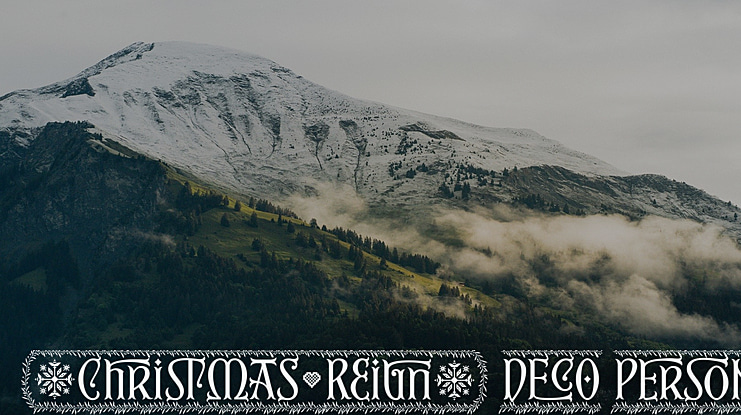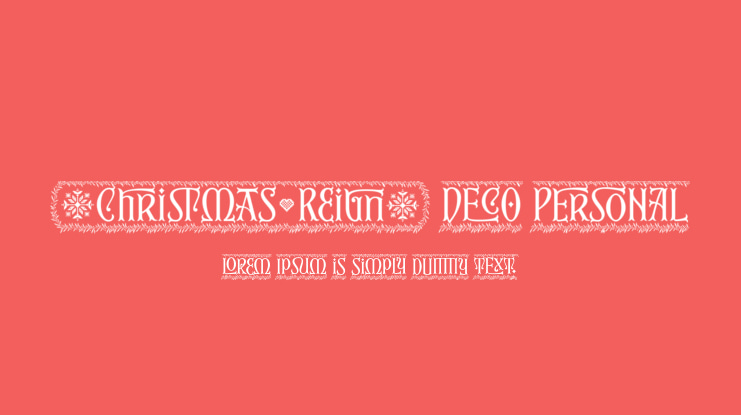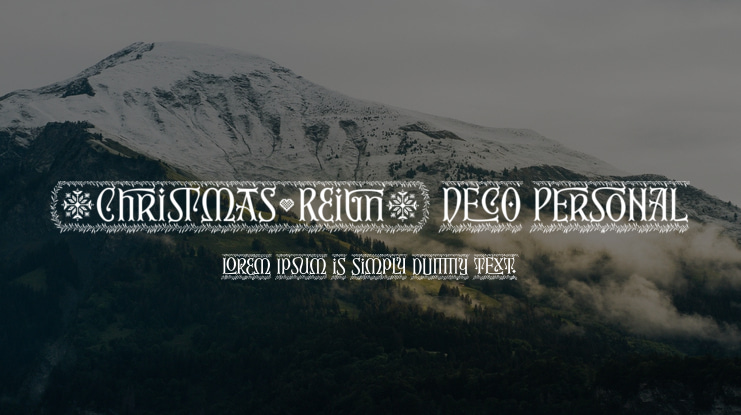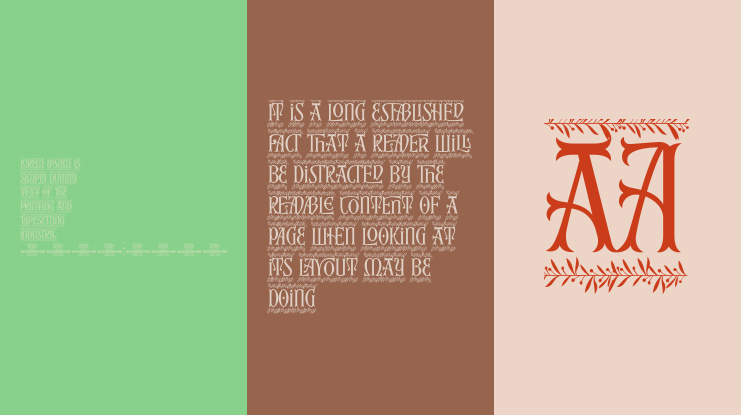
Christmas Reign Deco PERSONAL Font Family
Very easy to use functions!
Use characters + * # to create Christmas symbols.
Example: +Merry Christmas+
Use ( ) [ ] to make a decorative border around any word.
Underline _ makes a space with borders.
Example: (Santa_Claus)